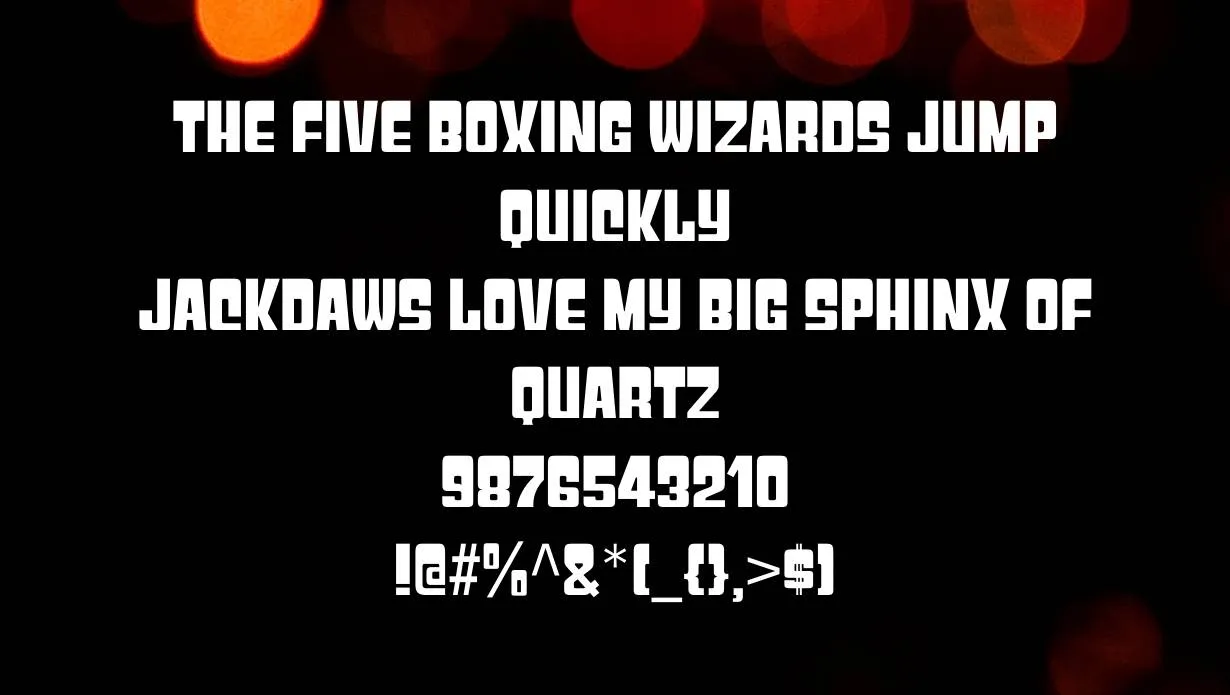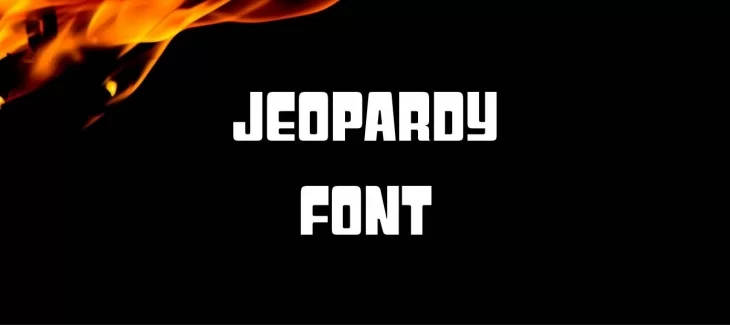
Jeopardy Font is a television game show that has been a fan favorite for decades. This font is based on an early 20th-century design called Rectangle Bold Condensed Font, created by British typeface designer Frederic W. Goudy.
This font style was designed by Ray Larabie, Who is a very famous font designer and also a graphic designer that also created many unique fonts. The Jeopardy font is a slightly modified version of Goudy’s original design. It can also be commonly used in Word and Powerpoint software to make assignment
This font style has been used on this television show since it first aired in 1964. This font is one of the most recognizable fonts on television. The style of typeface is much similar to the Galaxy font with the same connected letterforms and high-quality graphics you can try for your valuable designs.
Who Used Jeopardy Font?
This font is perfect for creating headlines, signs, and other short blocks of text that need to be attention-grabbing. The strong, condensed letters make a big impact in a small amount of space. This font can also be used for body text in small doses.
Jeopardy Font Family Appearance
| Name | Jeopardy Font |
| Designer | Frederic W. Goudy |
| Style | Gothic |
Alternatives of Jeopardy Font
Family of Jeopardy Font
- Jeopardy Regular Font
What is the font used in jeopardy?
The jeopardy font has many unique features and designs that you can utilize easily in many various projects. The original font is used in this font named ITC Korinna Font.
Is jeopardy a good font for print?
This font is not recommended for body text as it is quite difficult to read. However, it would be perfect for headlines, titles, or others.